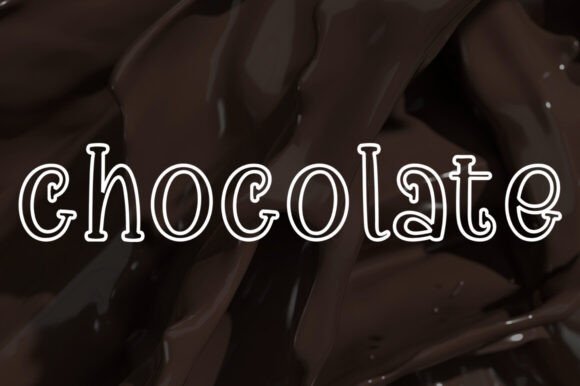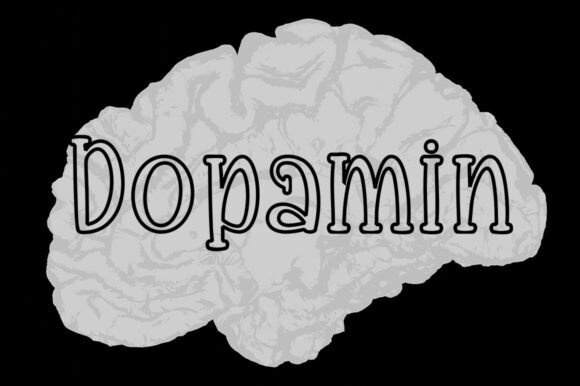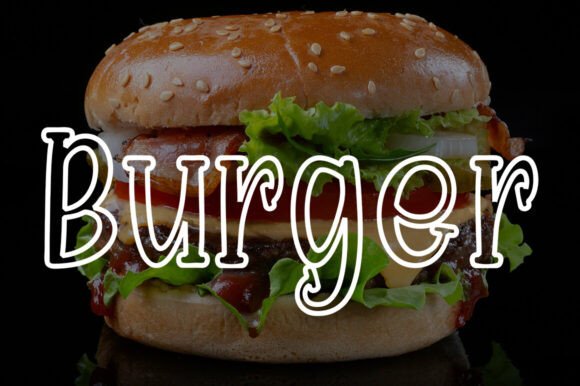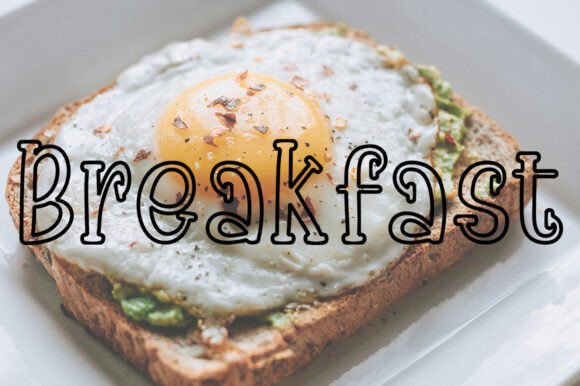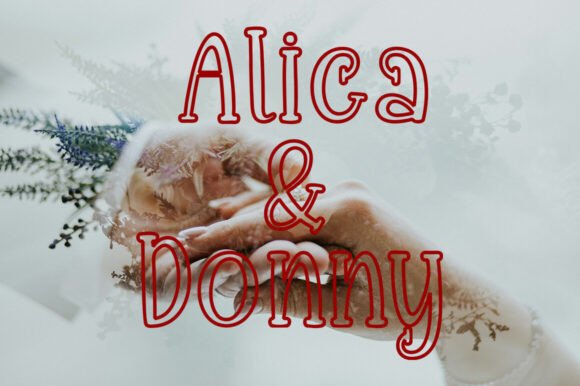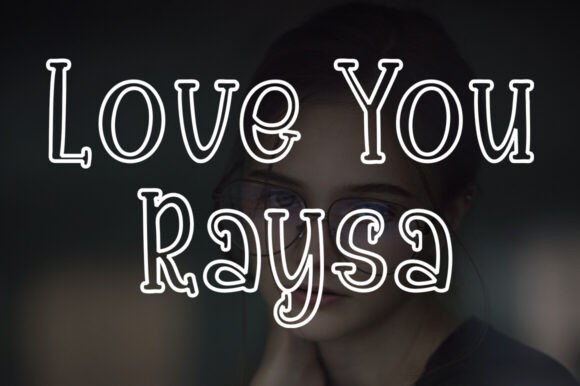
Cafein Font: The Perfect Blend of Playfulness and Sophistication
In the world of typography, fonts play a crucial role in conveying the tone and personality of a brand. For designers and crafters looking to add a touch of warmth and friendliness to their projects, Cafein Font is an excellent choice. This modern handwritten font boasts a playful, outlined style that is sure to bring a cozy and inviting feel to any design.
What is Cafein Font?
Cafein Font is a unique and artistic font that combines casual charm with a distinctive touch. Its outlined style gives it a modern and sleek look, making it perfect for a variety of design applications. Whether you’re working on a coffee shop branding project, packaging design, social media graphics, or creative projects, Cafein Font is an excellent choice.
Characteristics of Cafein Font
Cafein Font has several characteristics that make it stand out from other fonts. Some of its key features include:
- Playful and outlined style: Cafein Font has a fun and playful vibe, thanks to its outlined style. This makes it perfect for designs that require a touch of whimsy and creativity.
- Modern and sleek look: Despite its playful nature, Cafein Font has a modern and sleek look that makes it suitable for a wide range of design applications.
- Handwritten feel: Cafein Font has a handwritten feel that gives it a personal and friendly touch. This makes it perfect for designs that require a human touch.
- Cozy and inviting feel: Cafein Font has a warm and welcoming feel that makes it perfect for designs that require a cozy and inviting atmosphere.
Use Cases for Cafein Font
Cafein Font is a versatile font that can be used in a variety of design applications. Some of the most popular use cases for Cafein Font include:
- Coffee shop branding: Cafein Font is perfect for coffee shop branding projects, thanks to its warm and inviting feel. It’s ideal for logos, menus, and packaging design.
- Packaging design: Cafein Font can be used in packaging design to add a touch of personality and whimsy to products.
- Social media graphics: Cafein Font is perfect for social media graphics, thanks to its modern and sleek look. It’s ideal for creating engaging and eye-catching graphics.
- Creative projects: Cafein Font can be used in a variety of creative projects, such as art journals, scrapbooking, and mixed media art.
Why Choose Cafein Font?
There are several reasons why designers and crafters should choose Cafein Font for their projects. Some of the benefits of using Cafein Font include:
- Unique and artistic: Cafein Font has a unique and artistic style that sets it apart from other fonts.
- Versatile: Cafein Font can be used in a variety of design applications, making it a versatile addition to any designer’s toolkit.
- Easy to read: Despite its playful nature, Cafein Font is easy to read and understand, making it perfect for designs that require a clear and concise message.
- Customizable: Cafein Font can be customized to fit the needs of any project, making it a great choice for designers who want to add a personal touch to their work.
Tips for Using Cafein Font
To get the most out of Cafein Font, designers and crafters should follow a few simple tips:
- Use it with a clear message: Cafein Font is perfect for designs that require a clear and concise message. Use it to add a touch of personality to your message.
- Experiment with colors: Cafein Font looks great in a variety of colors. Experiment with different colors to find the perfect combination for your design.
- Pair it with other fonts: Cafein Font can be paired with other fonts to create a unique and eye-catching design.
- Use it consistently: To create a cohesive look, use Cafein Font consistently throughout your design.
| Author | Shape Studio |
Cafein Font is a modern handwritten font with a playful, outlined style that brings a cozy and inviting feel to any design. Perfect for coffee shop branding, packaging, social media graphics, and creative projects, this font combines casual charm with a unique artistic touch. With its versatility, ease of use, and customizable nature, Cafein Font is an excellent choice for designers and crafters looking to add a touch of warmth and friendliness to their projects.